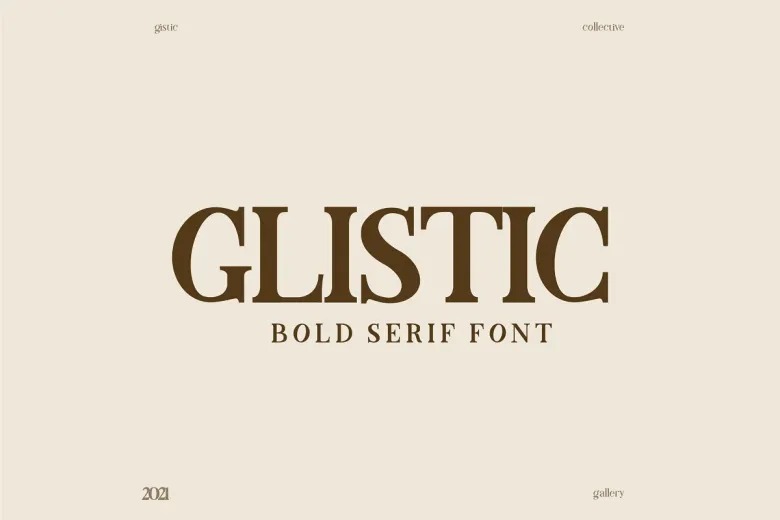
Glistic Font
Glistic Font is an elegant serif typeface that stands out with its bold strokes and quirky design elements. This unique combination allows Glistic to infuse humor into its appearance, making it a versatile choice for a variety of creative projects. The playful letterforms contribute to its distinctive character, making it ideal for designs that aim to be both sophisticated and fun.
The font shines in applications such as comic book posters, where its whimsical nature can enhance titles and promotional materials, creating a memorable impact. Additionally, Glistic’s elegant design is well-suited for magazine layouts, allowing it to effectively enhance both headlines and body text with its stylish flair. Its boldness ensures visibility while maintaining a sense of class.
From attractive posters to engaging comic book covers, Glistic Font offers a delightful blend of elegance and humor, making it perfect for projects that require a touch of creativity. Its unique design not only captures attention but also adds a whimsical charm, making any design effort stand out.